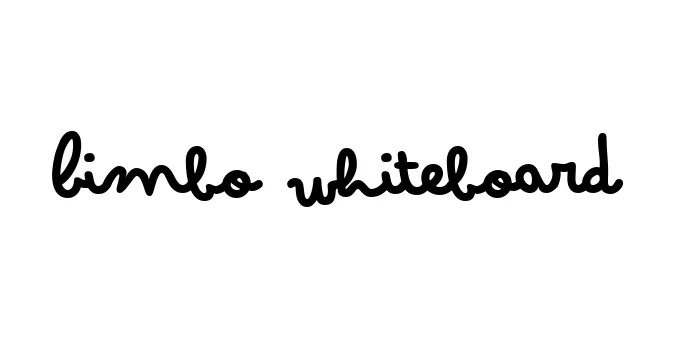
Bimbo Whiteboard
Designed by Francesco Canovaro, Debora Manetti, Cosimo Lorenzo Pancini
| Category | Handwritten Script |
| Designer | Francesco Canovaro, Debora Manetti, Cosimo Lorenzo Pancini |
| Similar Fonts | Comic Sans, KG Blank Space, Amatic SC, Marker Felt |
Bimbo Whiteboard is a playful and friendly monolinear script that belongs to the extensive Bimbo family developed by the renowned Italian foundry Zetafonts. It was specifically crafted to mimic the effortless look of hand-lettering created with a marker on a dry-erase board. The font features smooth, rounded terminals and a consistent stroke weight that provides a high level of legibility while maintaining a distinctly human and casual aesthetic.
This typeface is part of a larger project intended to offer designers a wide variety of handwriting styles, ranging from thin pens to thick markers. Bimbo Whiteboard stands out for its clarity and organic flow, making it an excellent choice for modern digital interfaces that need a touch of warmth and personality. Its design avoids the rigidity of traditional calligraphy, instead favoring a spontaneous, everyday handwriting style that resonates with audiences seeking authenticity.
Perfect for creating engaging teacher resources and classroom presentations.
Great for informal captions, quotes, and story overlays.
Adds a friendly, approachable human touch to onboarding screens and tooltips.
Ideal for logos and packaging for brands targeting a youthful or relaxed audience.